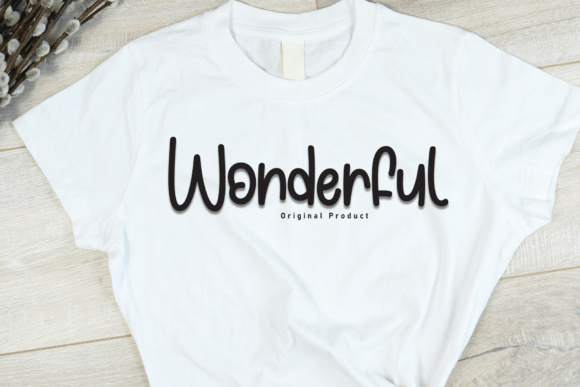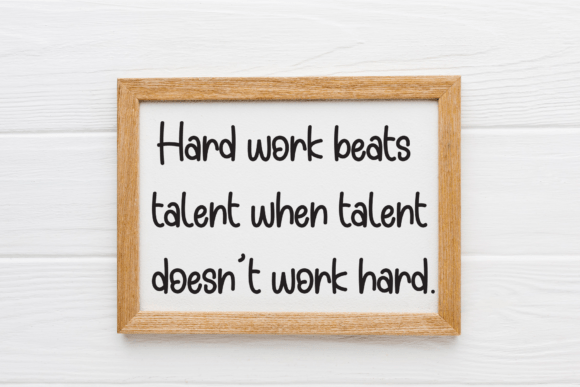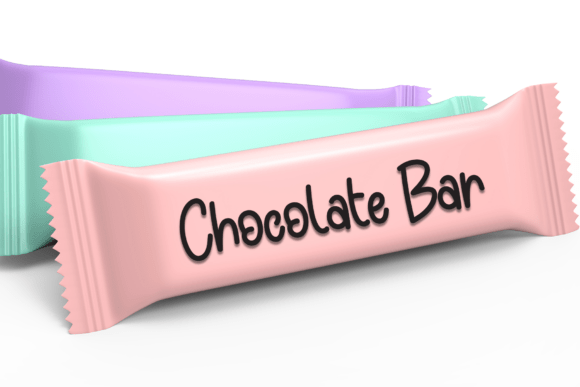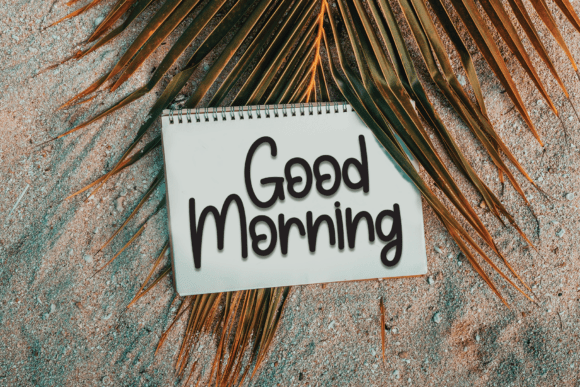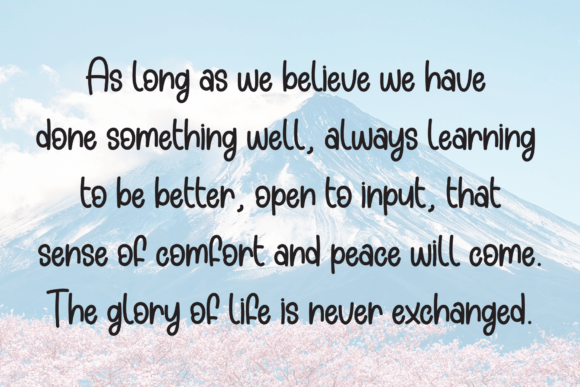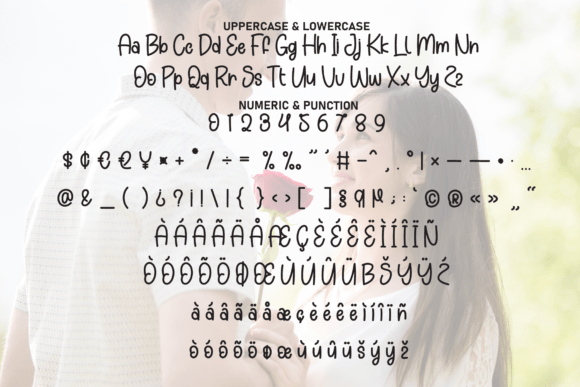
The Perfect Match: Discovering the Best Romance Font
Have you ever stumbled upon a font that captures the essence of your creative vision? For designers, the search for the perfect font can be a daunting task, but what if we told you we’ve found the one that will make your heart skip a beat? The Best Romance Font is a delightful display of charm and whimsy, perfectly suited for any design project that requires a touch of tenderness and warmth.
This beautiful handwritten font is a treasure trove for designers, offering endless possibilities for creativity and self-expression. Whether you’re crafting heartfelt wedding invitations or designing engaging cards, the Best Romance Font is the perfect companion to bring joy and fun to your designs. Its unique essence is sure to infuse a delightful touch into any project, making it a valuable addition to any designer’s toolkit.
Key Features of “Best Romance Font”
- Font Family: Designed with a unique combination of elegant and playful elements, making it perfect for romance-themed projects.
- Unique Characteristics: Features a unique ligature system, allowing for beautiful connections between letters, and a subtle flair at the ends of strokes, adding a touch of whimsy and romance.
Designer Review: Best Romance Font
I have to say, I was excited to dive into the “Best Romance Font” and see if it lives up to its name. As a designer, I’ve worked with my fair share of fonts, but I always appreciate a new challenge.
- The font’s romantic feel is undeniable. The cursive script and elegant lines evoke a sense of love and passion.
- The font’s versatility shines through in its various weights and styles, making it suitable for a range of applications, from wedding invitations to love letters.
- The font’s legibility is excellent, making it easy to read even in smaller sizes.
- The font’s complexity may make it difficult to customize or edit, which could be a problem for designers who need to make last-minute changes.
- The font’s romantic feel may not be suitable for all types of projects, such as business or technical documents.
While the “Best Romance Font” excels in its romantic feel and versatility, its limitations may hold it back from being a go-to font for all designers. However, for projects that require a touch of love and elegance, this font is definitely worth considering.
Use the Best Romance Font to add a touch of elegance and sophistication to your designs. Pair it with bold colors and delicate illustrations to create a romantic atmosphere.
The Best Romance Font is perfect for:
- Valentine’s Day and anniversary cards
- Love story book covers and illustrations
- Romantic quote posters and prints